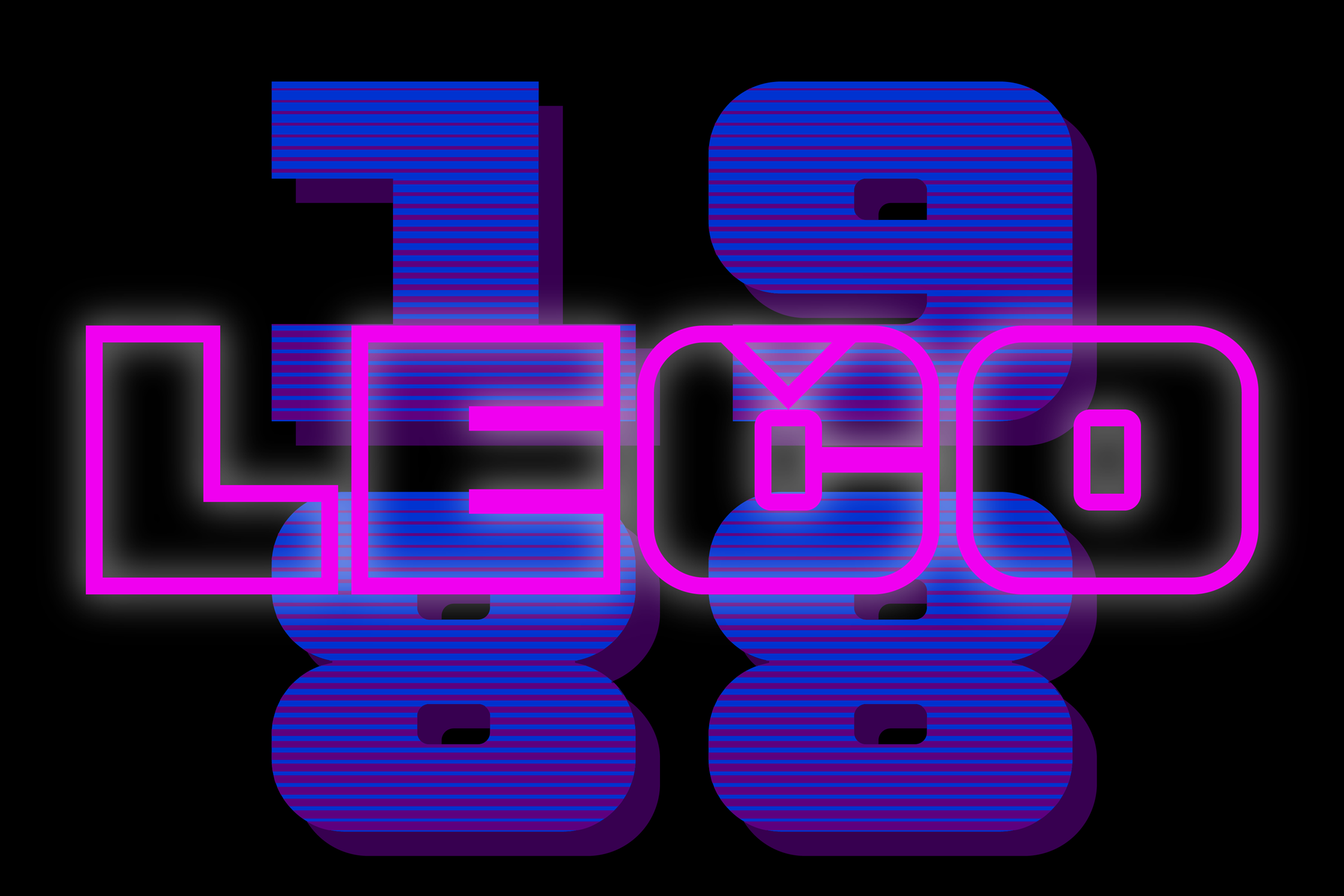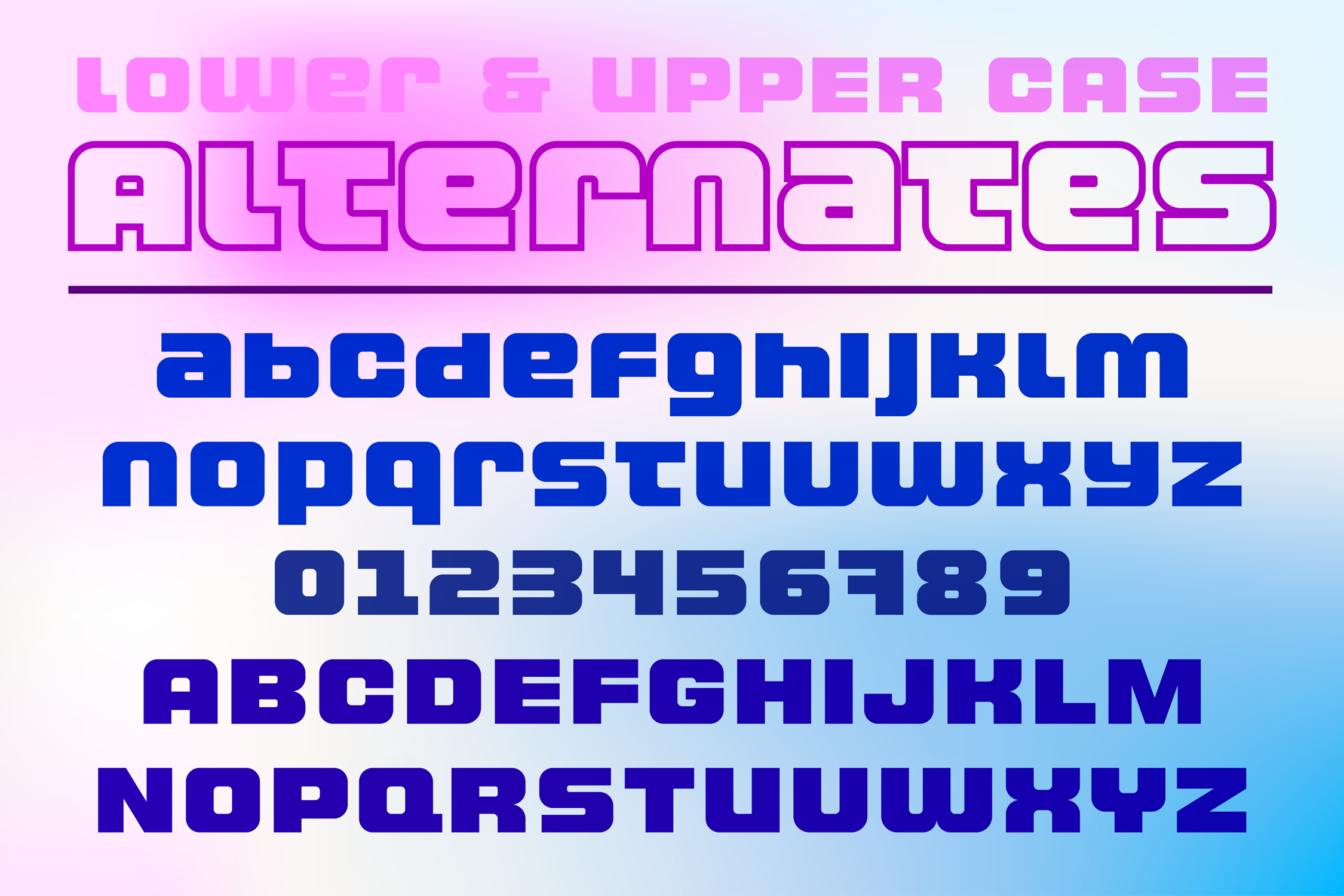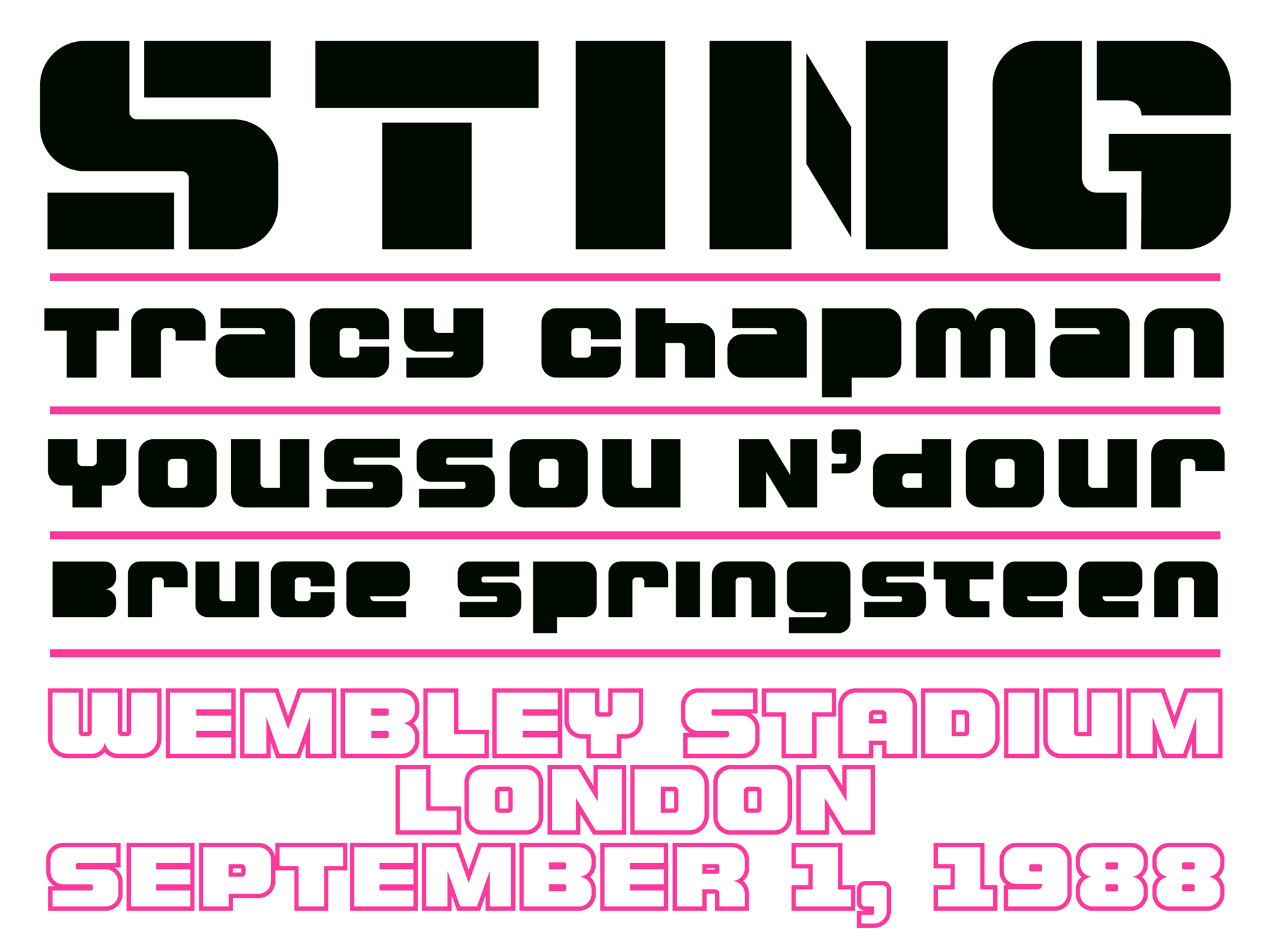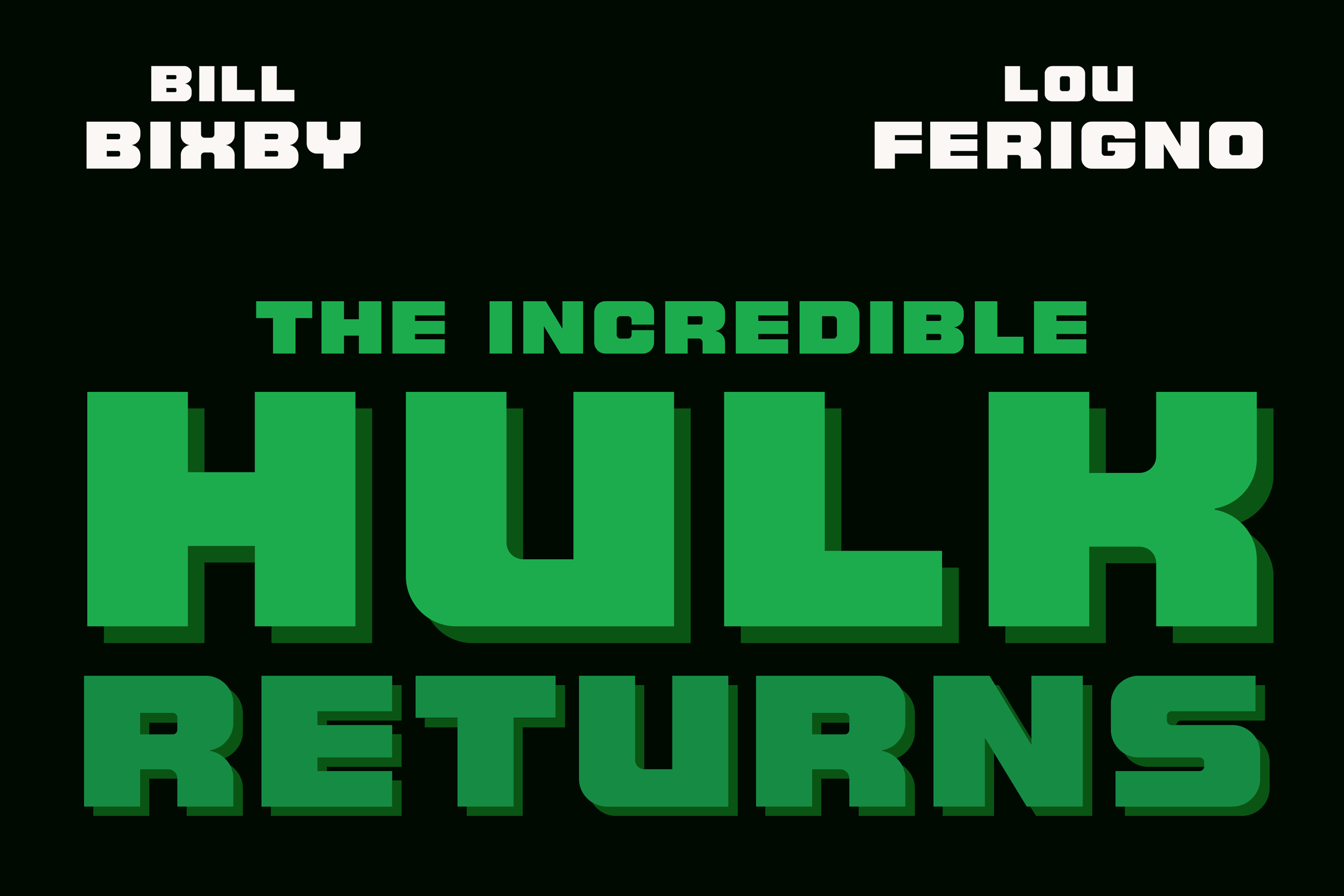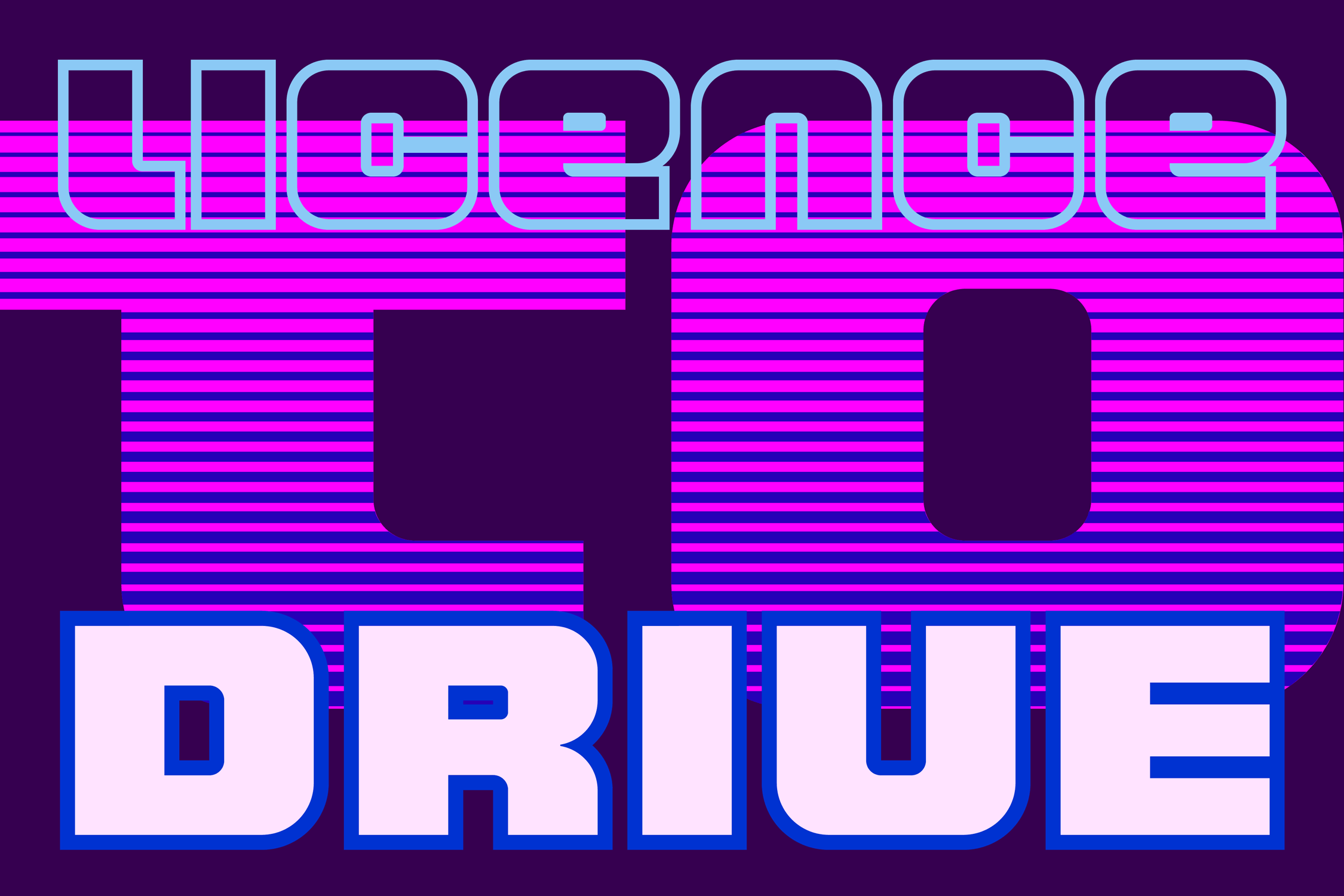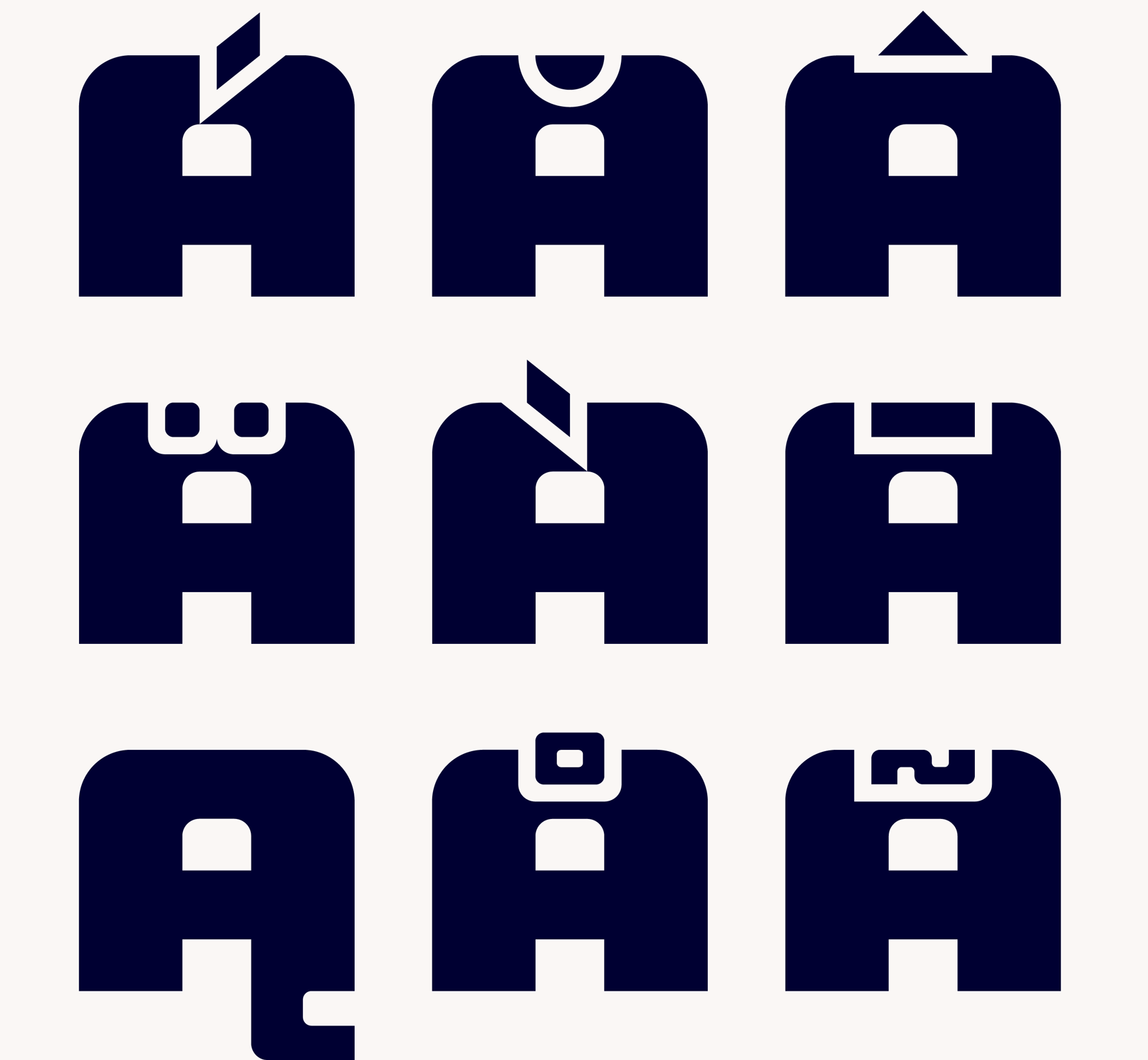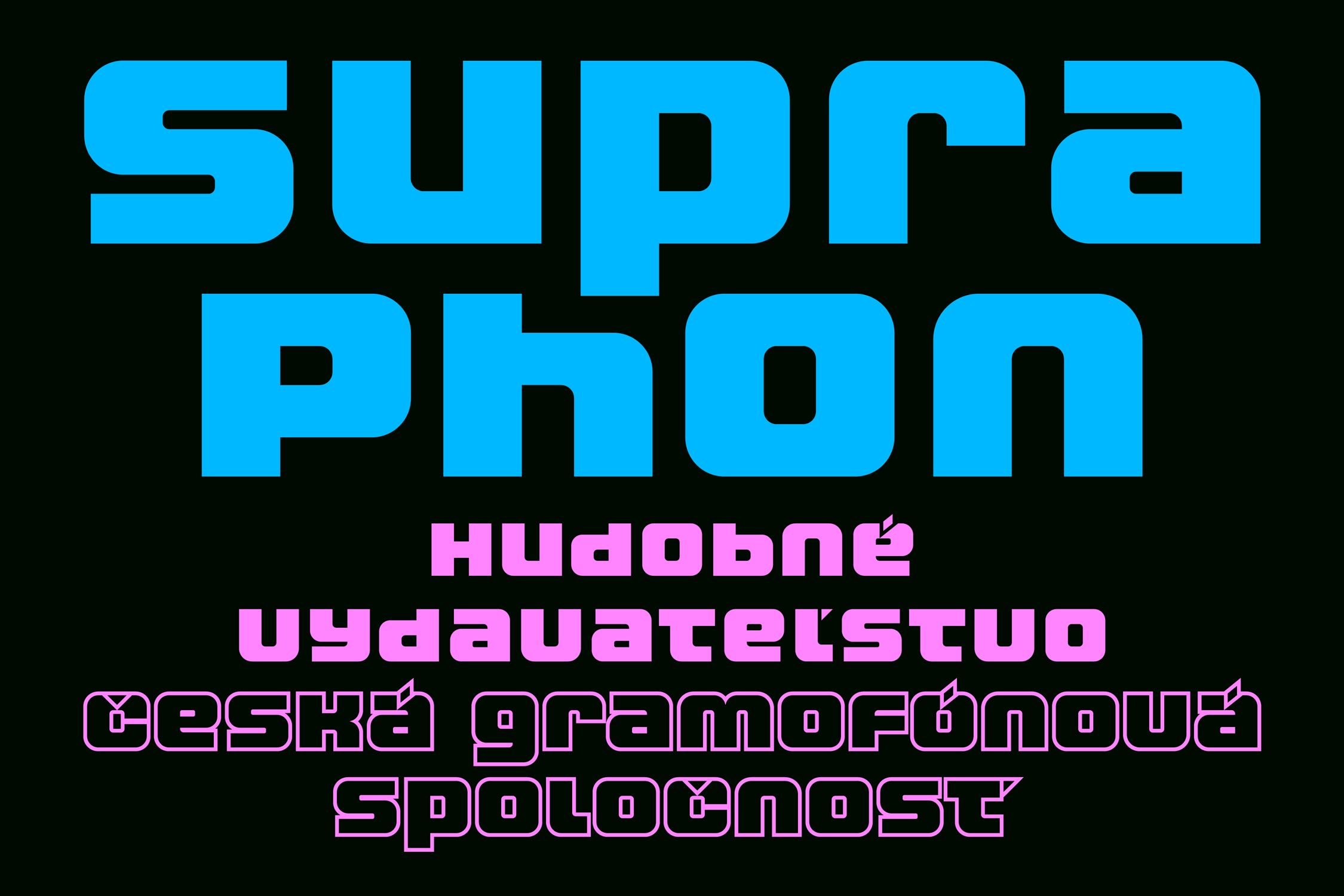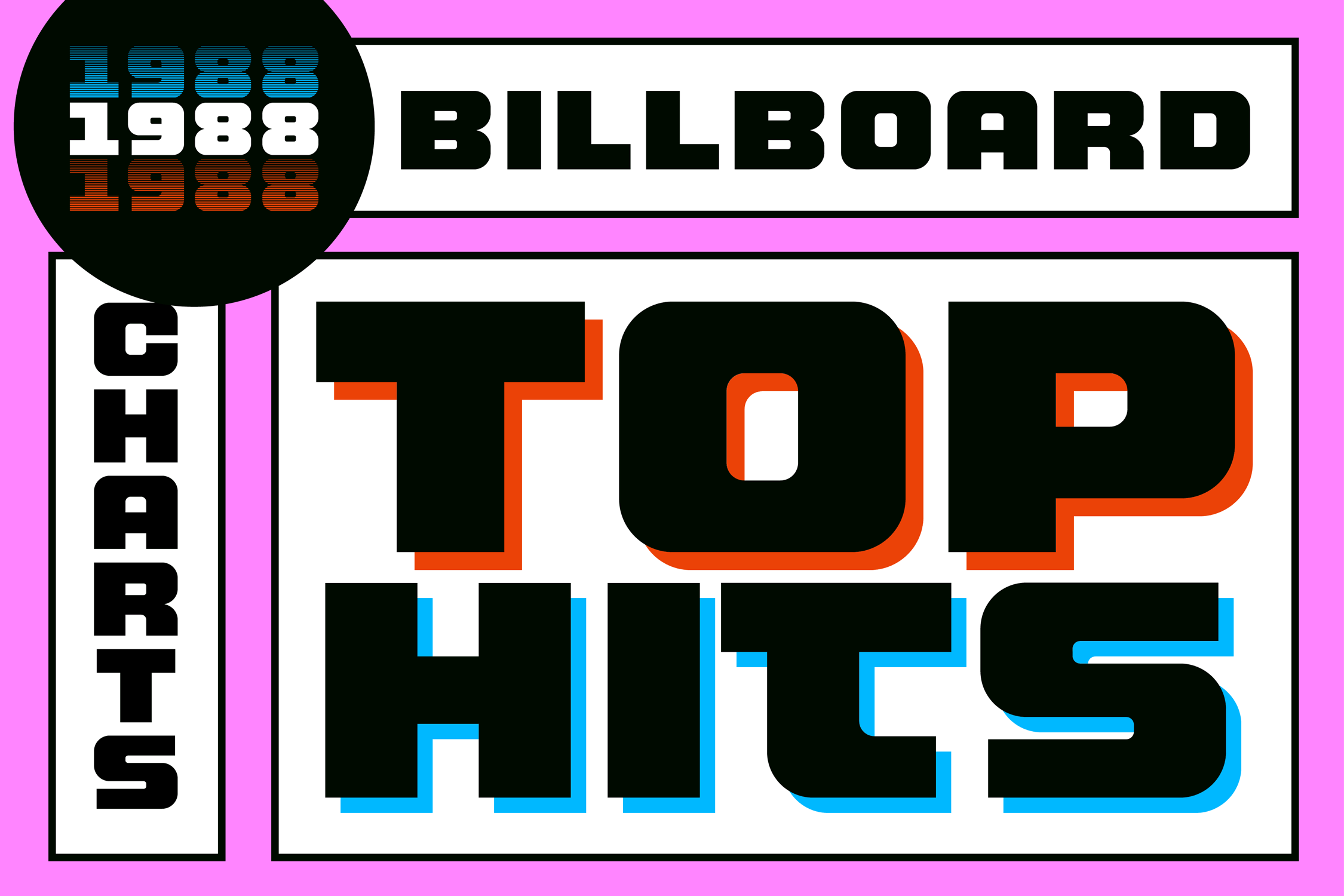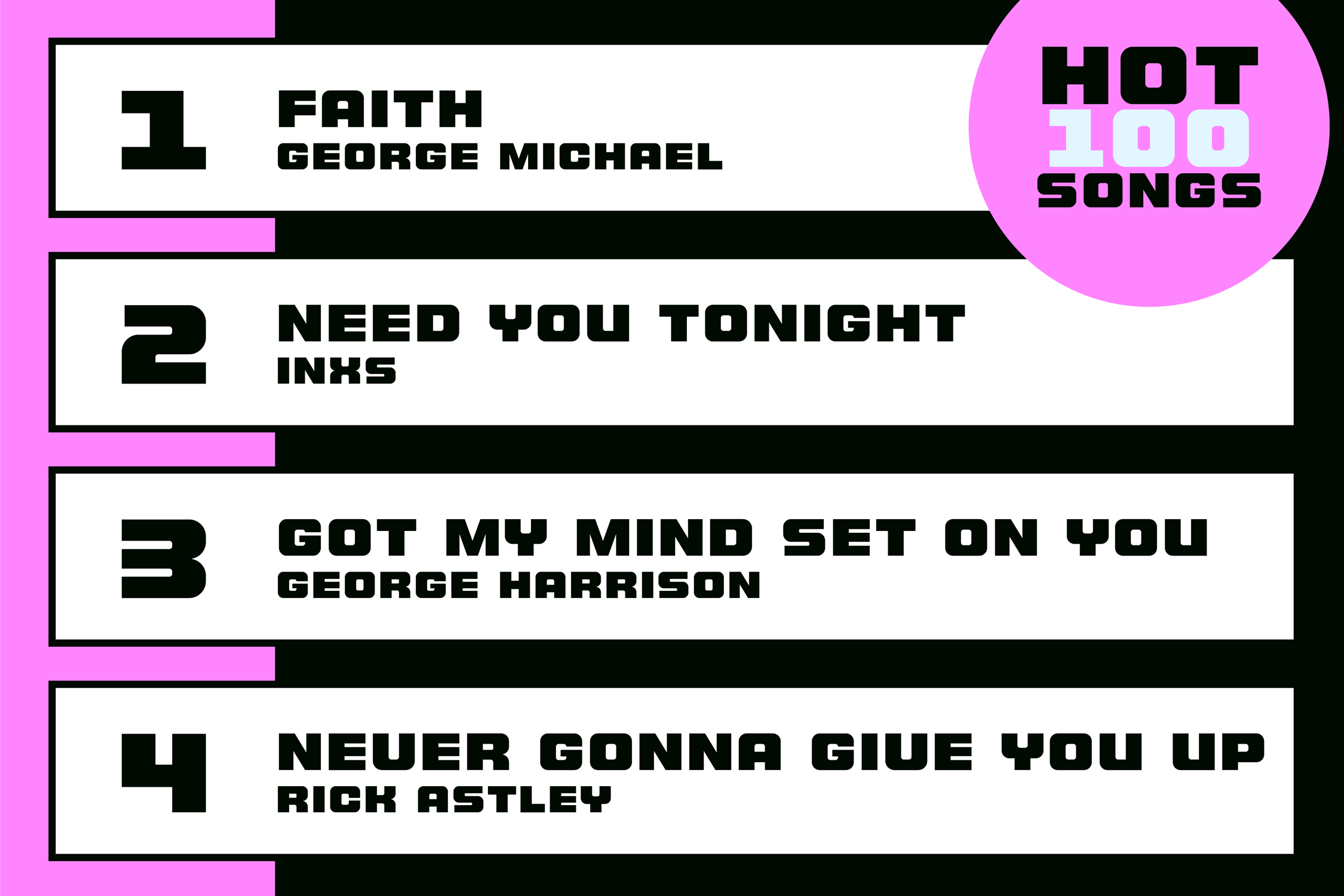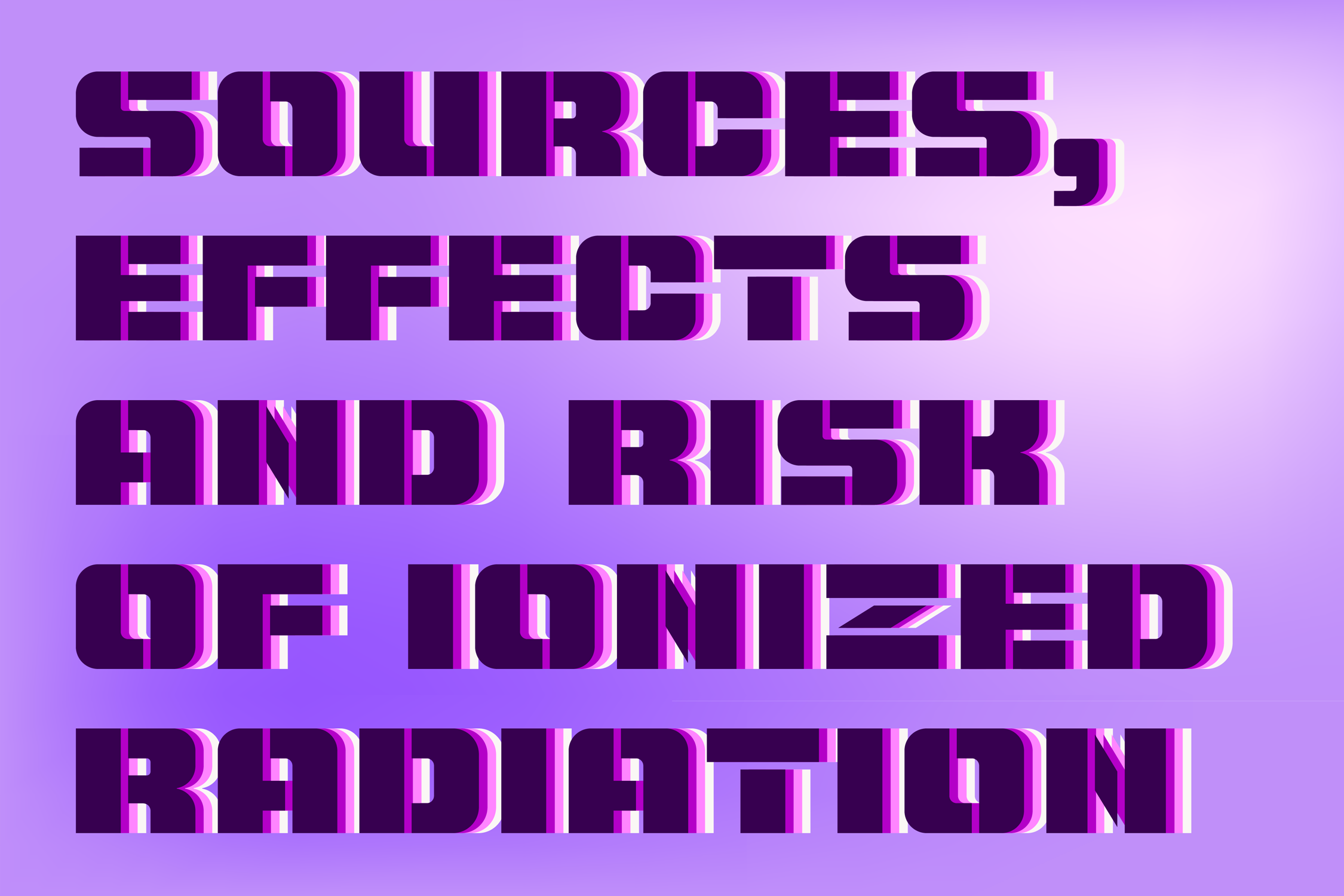
LECO 1988
The typeface LECO 1988 is another font family which belongs to LECO set. It is a display typeface, which is inspired by the title written on the bottle of lečo (bottled stew) from 1988. Its typical features are embedded diacritics and significant black look with low contrast. Lower case is united with upper case and has several identical glyphs in both forms. Font contains alternative set of glyphs for letter “E”. LECO 1988 font family includes six specific styles: Regular, Blind, Gradient, Outline, Shadow and Stencil style. Those styles extend typographic options by mutual combination or overlapping, whilst every style share the identical metrics and kerning. This typeface is suitable for creating logotypes, powerful posters or can be used as a headline display typeface.